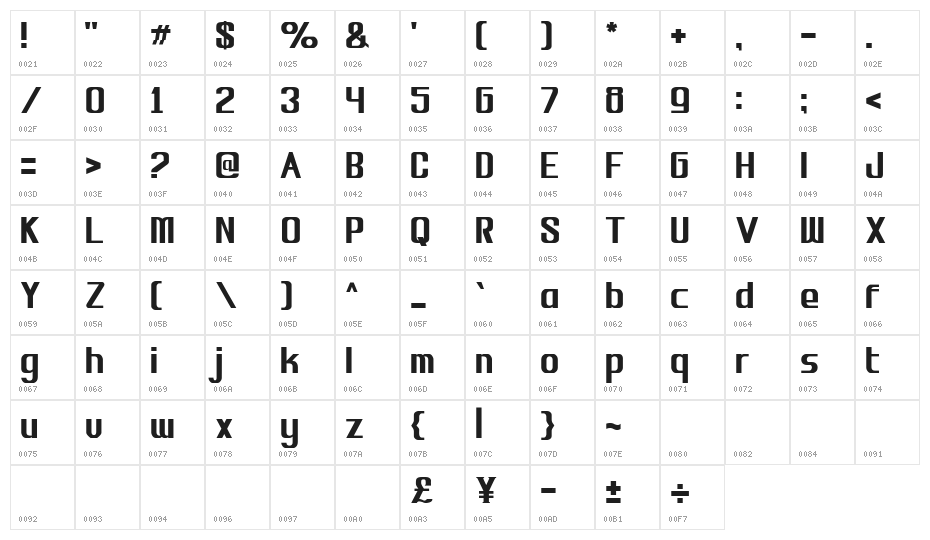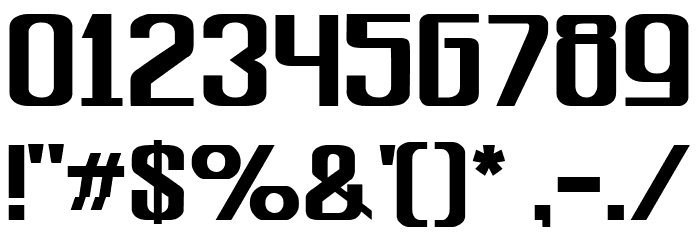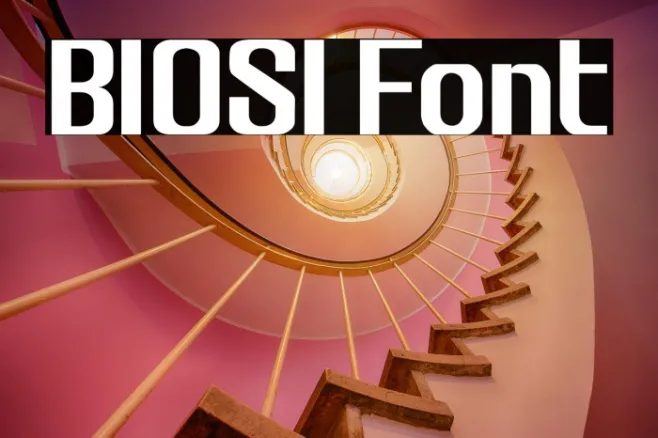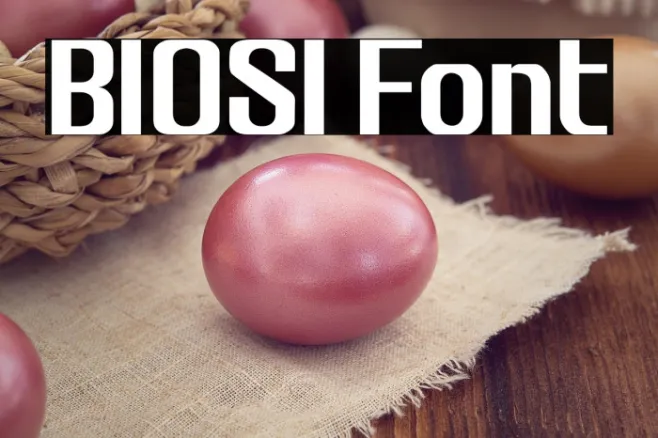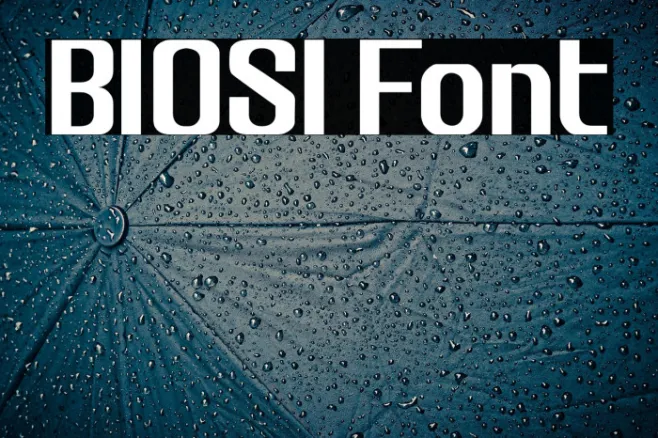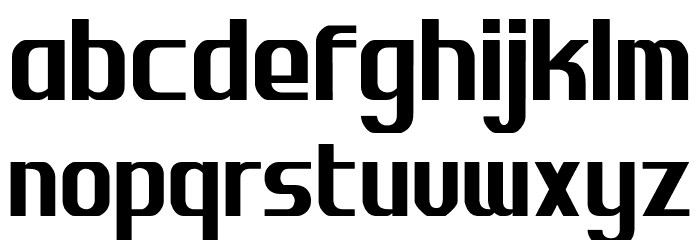
BIOSI Font
BIOSI Description
This font features a bold, geometric style with a modern and futuristic appeal. The characters are constructed with clean, straight lines and sharp angles, giving it a strong and assertive presence. The uppercase letters are uniform in height, while the lowercase letters maintain a consistent baseline, enhancing readability. The numerals are distinct and align well with the overall design, making them suitable for digital displays. Special characters are crafted with the same attention to detail, ensuring they integrate seamlessly with the rest of the typeface. This font's design is both functional and aesthetically pleasing, making it versatile for various applications.
| Use Case | Headlines, Logos, Digital displays |
| Proposed Projects | Ideal for technology branding, digital interfaces, video game graphics, and modern advertising. |